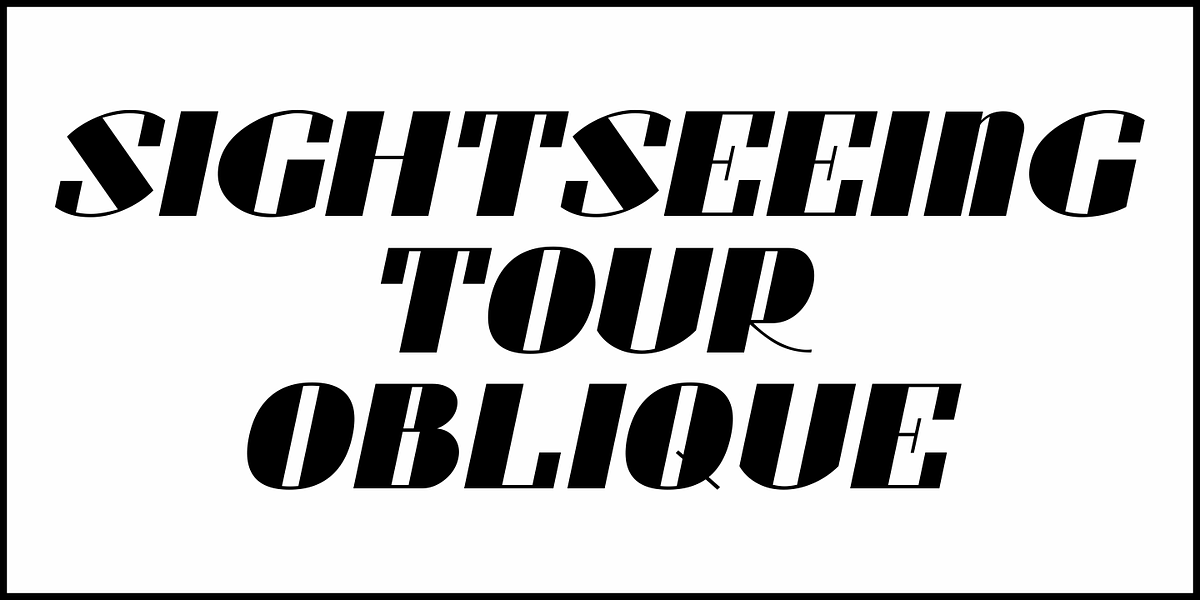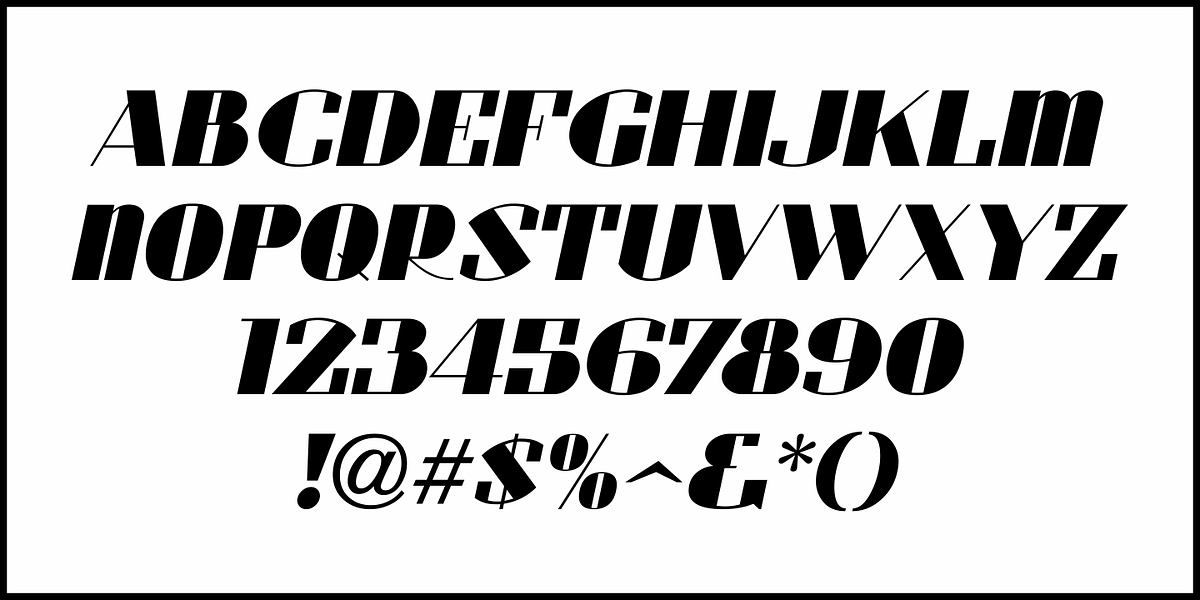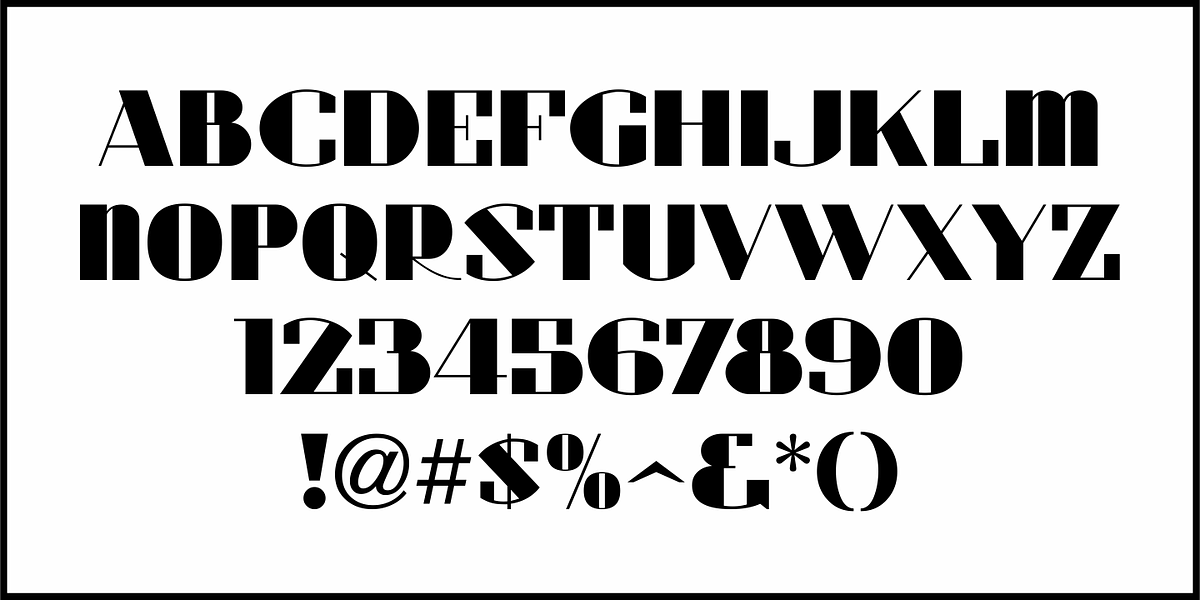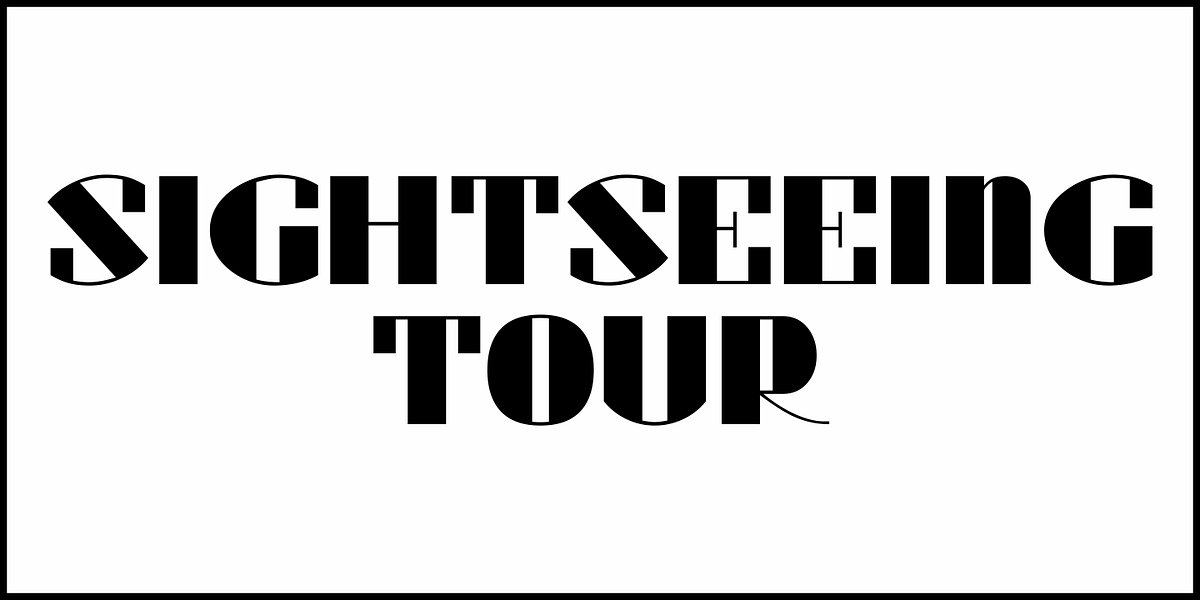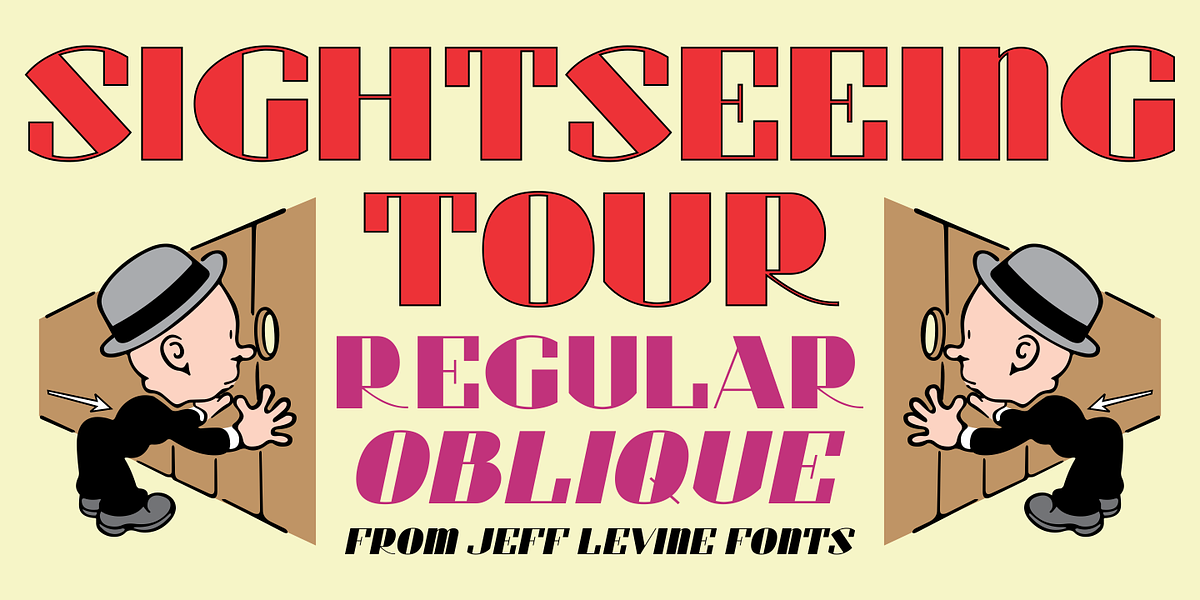
Sightseeing Tour JNL
Samuel Welo was a sign painter who had published in the 1920s and again in 1960 his “Studio Handbook – Letter and Design for Artists and Advertisers”, prolifically hand lettering all of the type style examples within the pages of the publication.
In 1930 Welo also published “Lettering - Practical and Foreign”. From this book comes a thick-and-thin hand lettered Art Deco alphabet – now available digitally as Sightseeing Tour JNL in both regular and oblique versions.